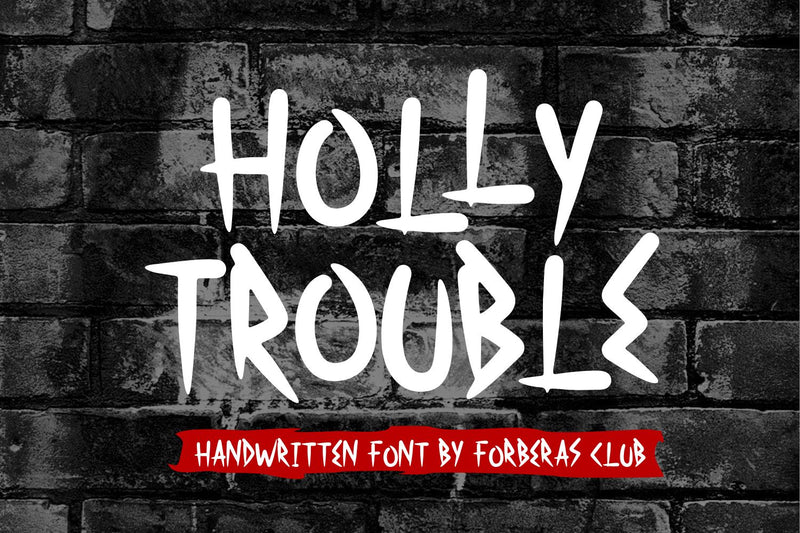
Holly Trouble
Introducing Holly Trouble Font by Forberas Club
Holly Trouble is a Modern Handwritten Font. Holly Trouble perfect for book cover, product packaging, branding project, megazine, social media, skate zine, band font, or just used to express words above the background. This font includes TTF and OTF, This font also multilingual support.